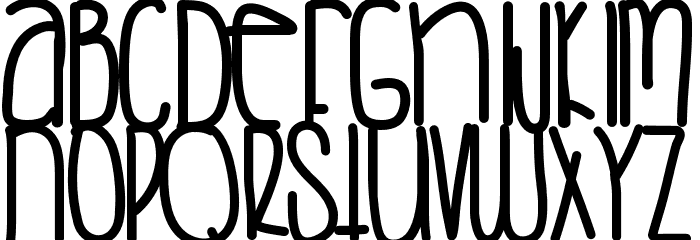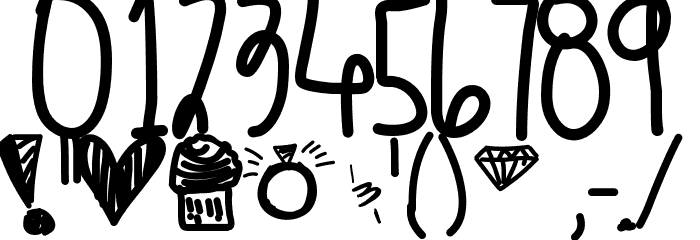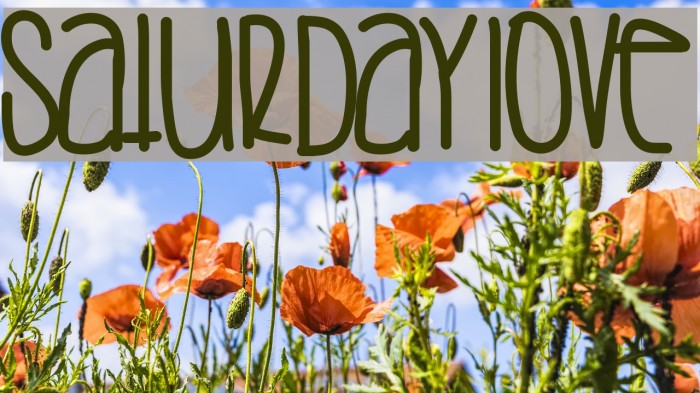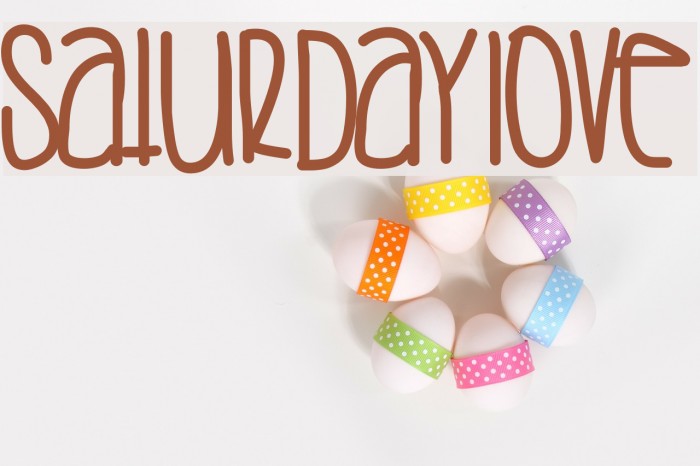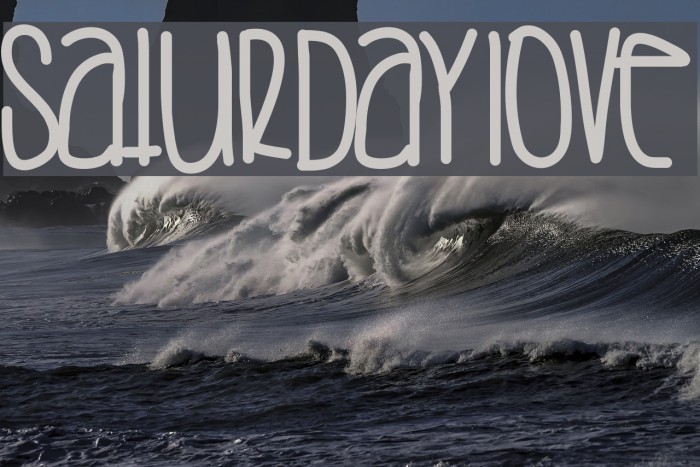
SaturdayLove Font
This playful and whimsical font features tall, narrow letters with a hand-drawn aesthetic. The characters are slightly irregular, adding a charming and informal feel. The uppercase and lowercase letters maintain a consistent style, with rounded edges and a smooth flow. Numbers and special characters are crafted with the same playful touch, making them ideal for creative projects. The font's unique style is perfect for adding a personal and artistic flair to any design.
A playful, hand-drawn font with tall, narrow letters and a whimsical style.
- Proposed Projects: Ideal for greeting cards, children's books, playful branding, and creative posters.